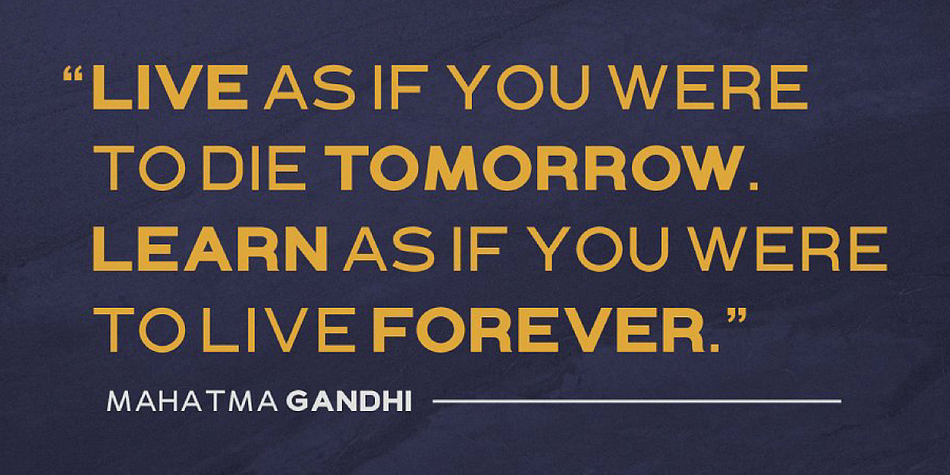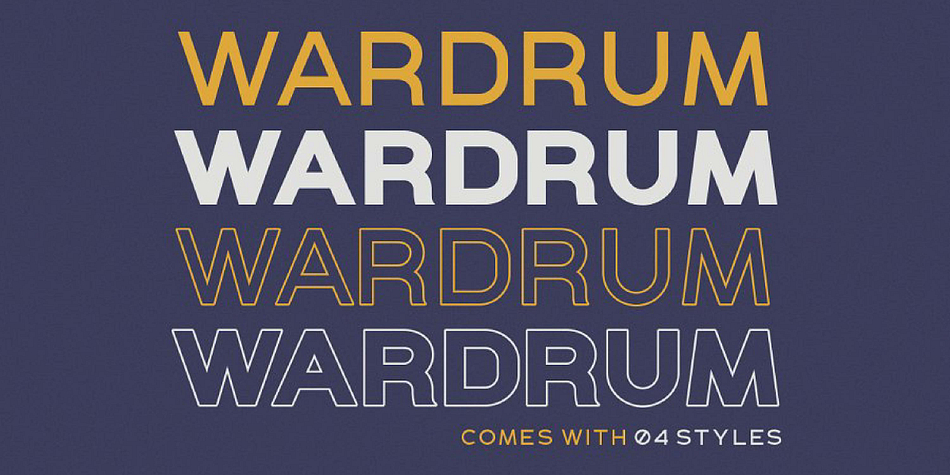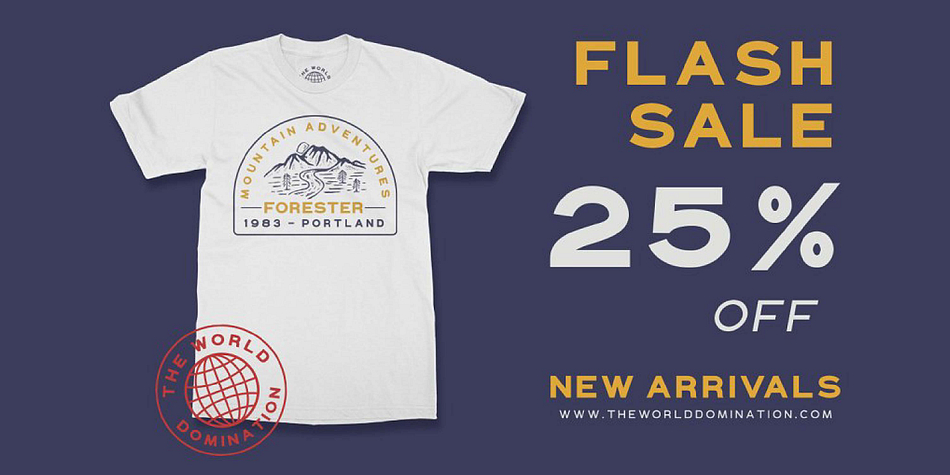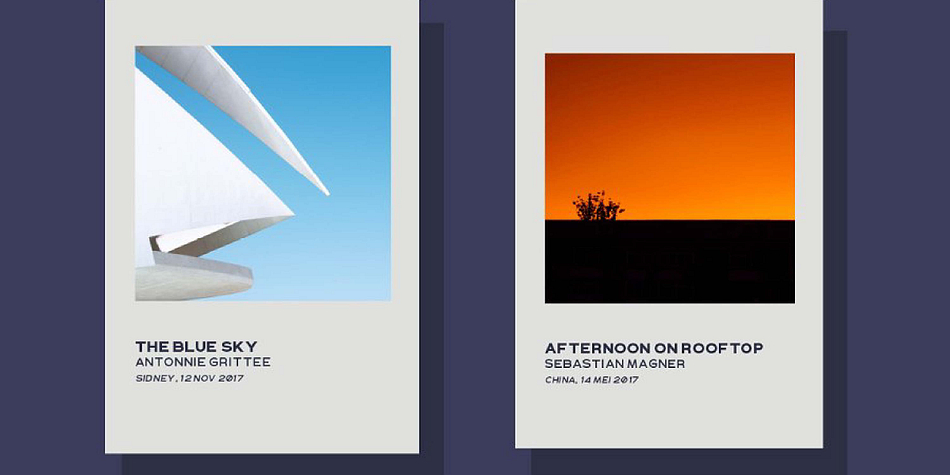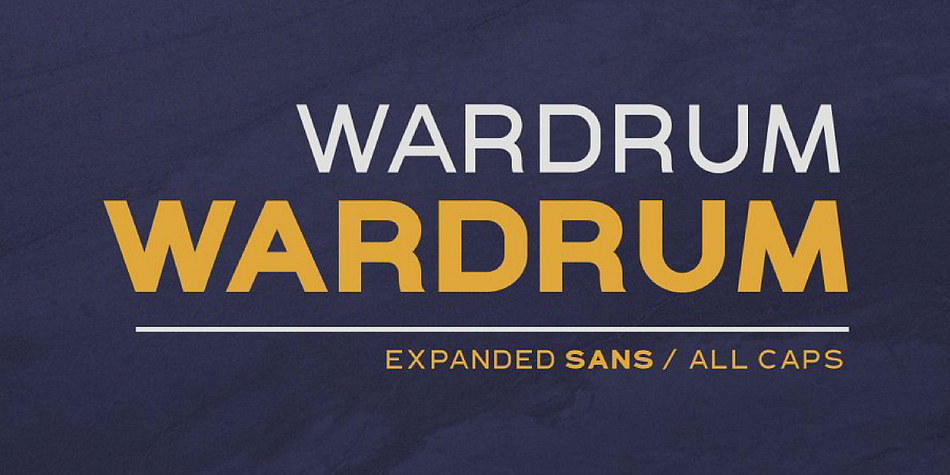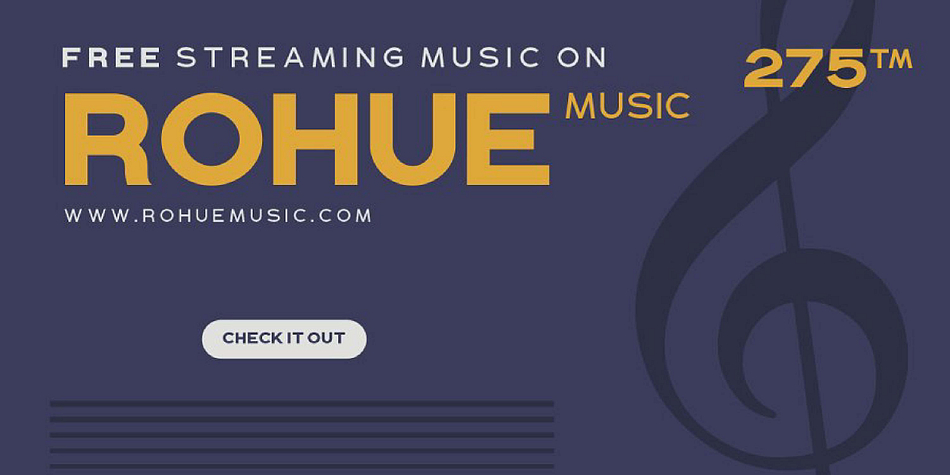
Designed by Hendry Juanda, WARDRUM is a display sans font family. This typeface has four styles and was published by Letterhend Studio.
Introducing, WARDRUM, Our new expanded sans!
WARDRUM is an expanded sans with four style! Use this font for your new project. Suitable for branding, poster, or your headline! This font contain uppercase only with number, symbol, punctuations and also support multi language!